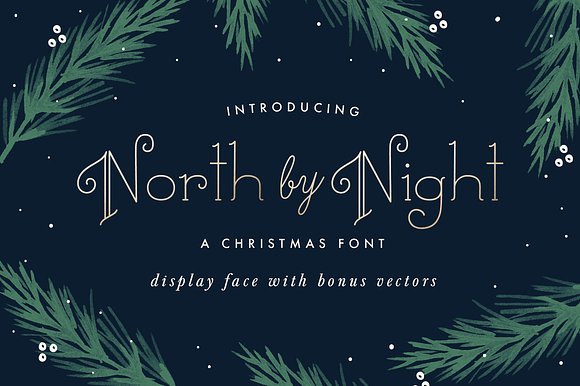
North By Night A Christmas Font
North By Night is suitable for Christmas cards, wedding invitations, branding, stationery, blog design, custom art, custom stamps, custom embossers, or any design purpose.